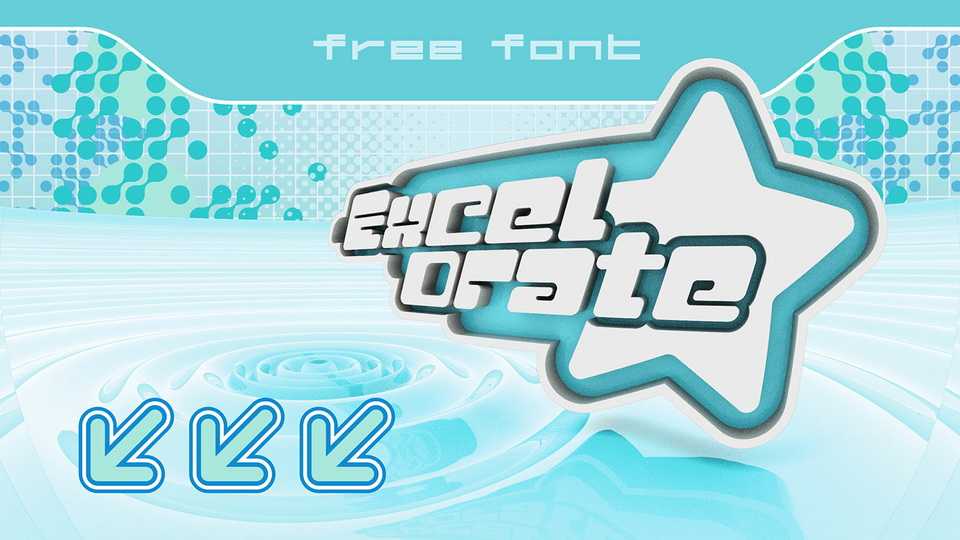
Download Excelorate font, a retro futuristic typeface inspired by the Y2K aesthetic. Excelorate is an optimistic look into the future featuring cool colors and sleek bold lines.